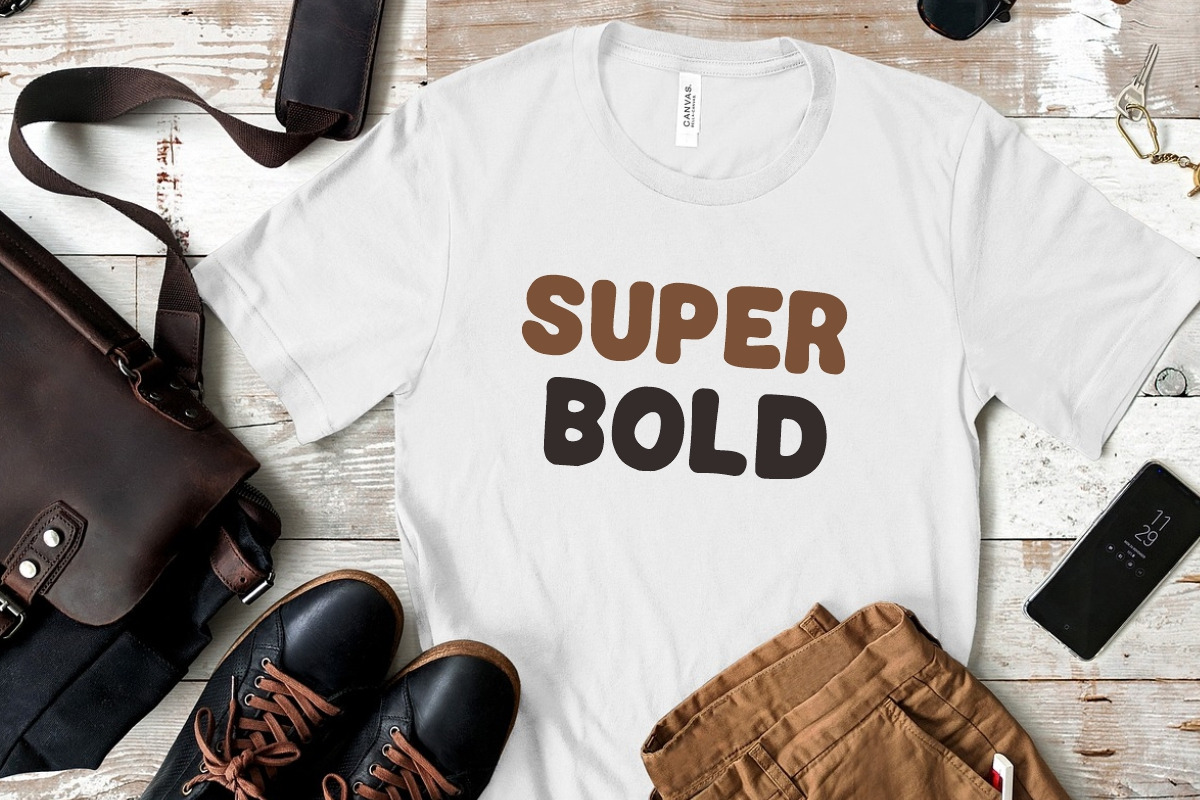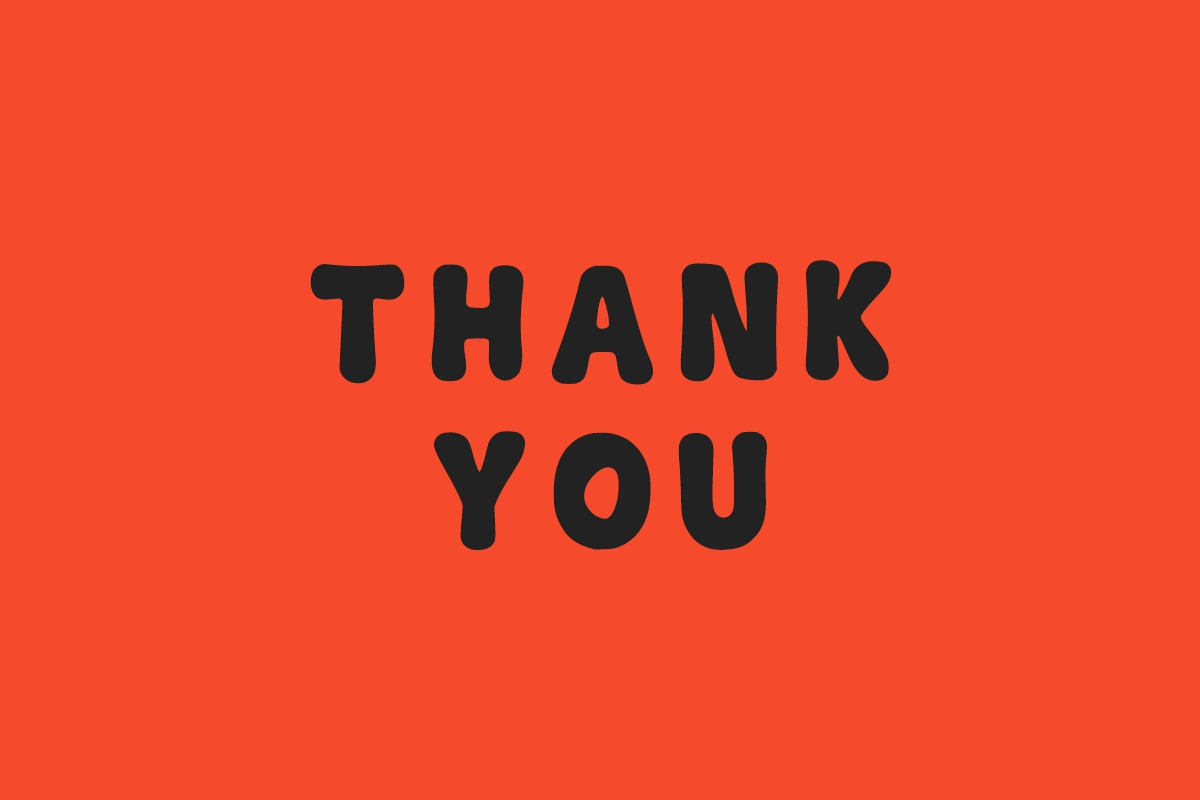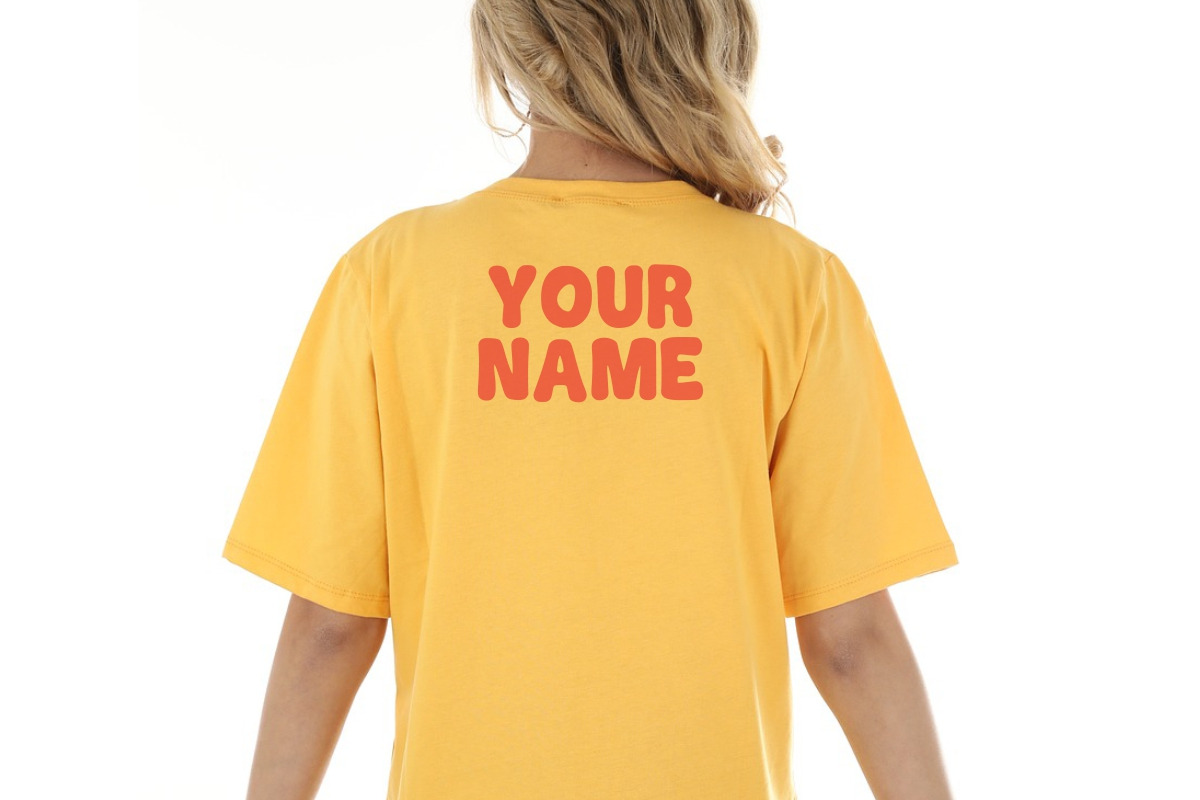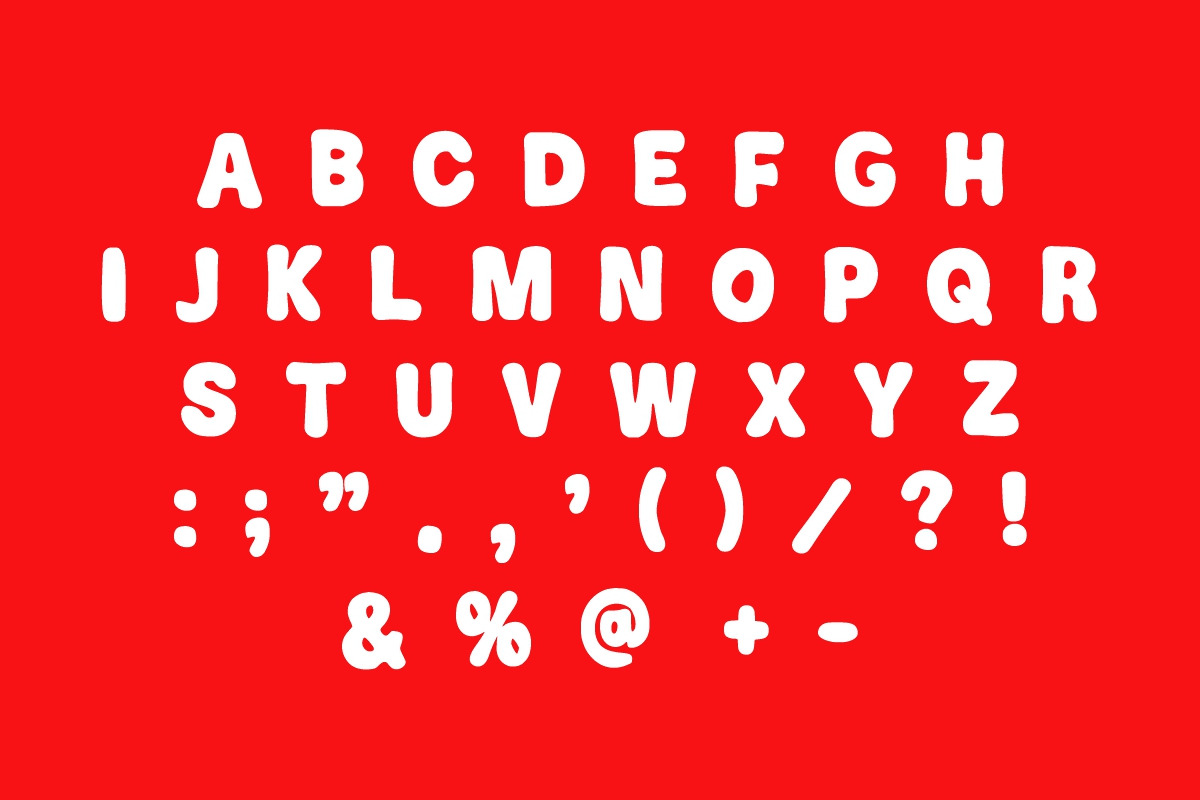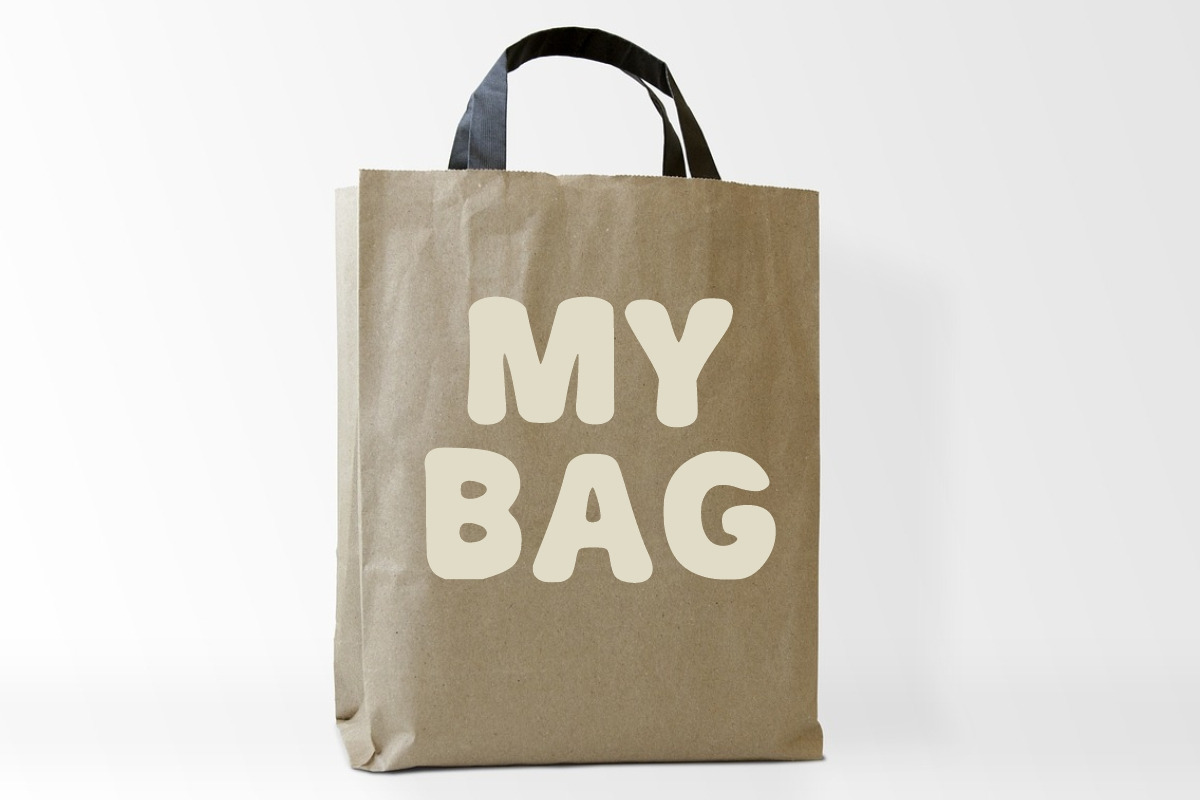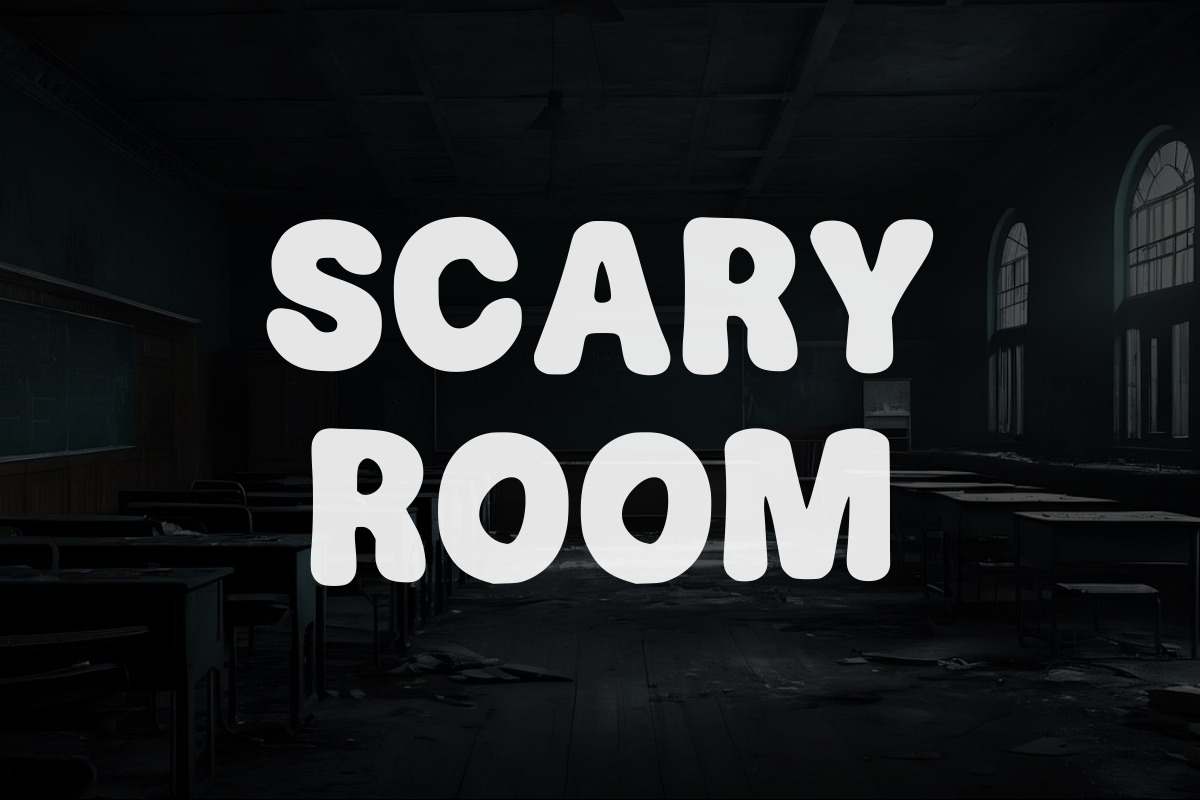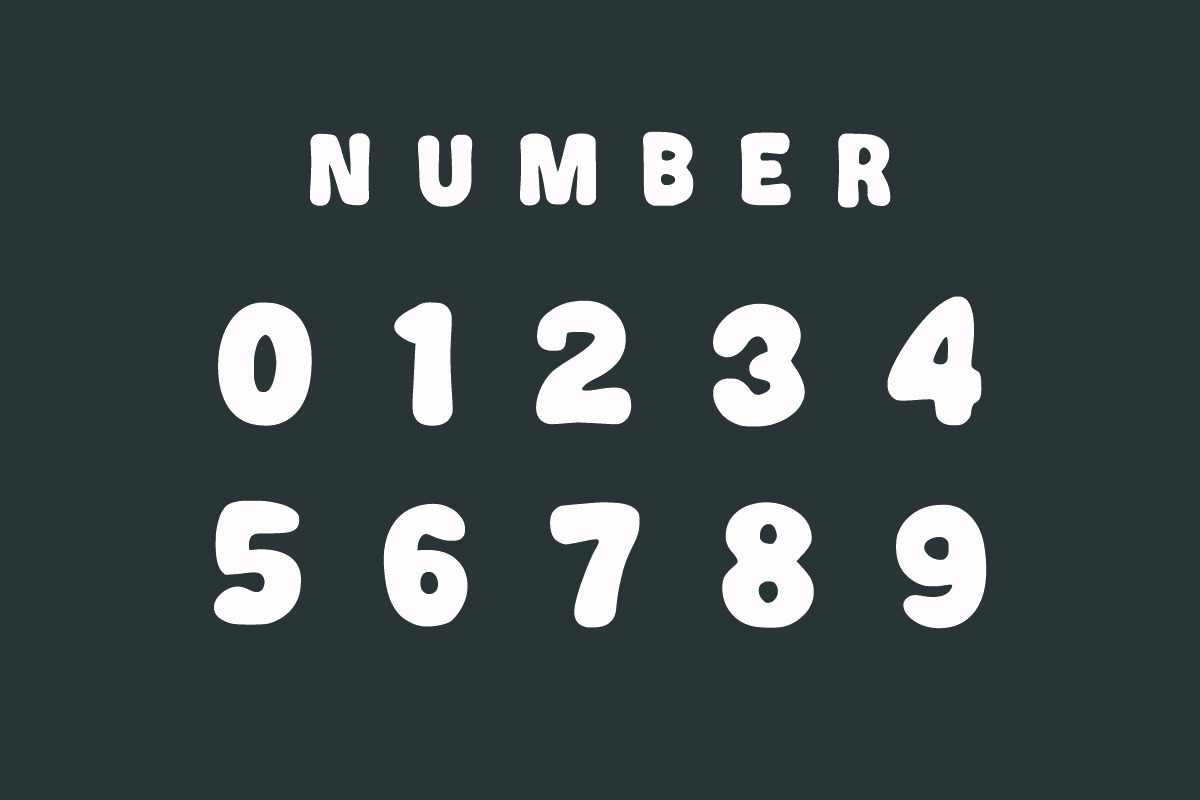
Holland Display Font
Holand is a cool and bold display font. It features a dynamic effect and a unique charm. It is perfect for headlines, sporting events, automotive posters, school posters, text effects, templates, logos, or monogrammed designs.
Why Holland Display Font is worth a look
Holland Display Font by Infinity art Studio fits naturally into Branding, posters, packaging, typography.